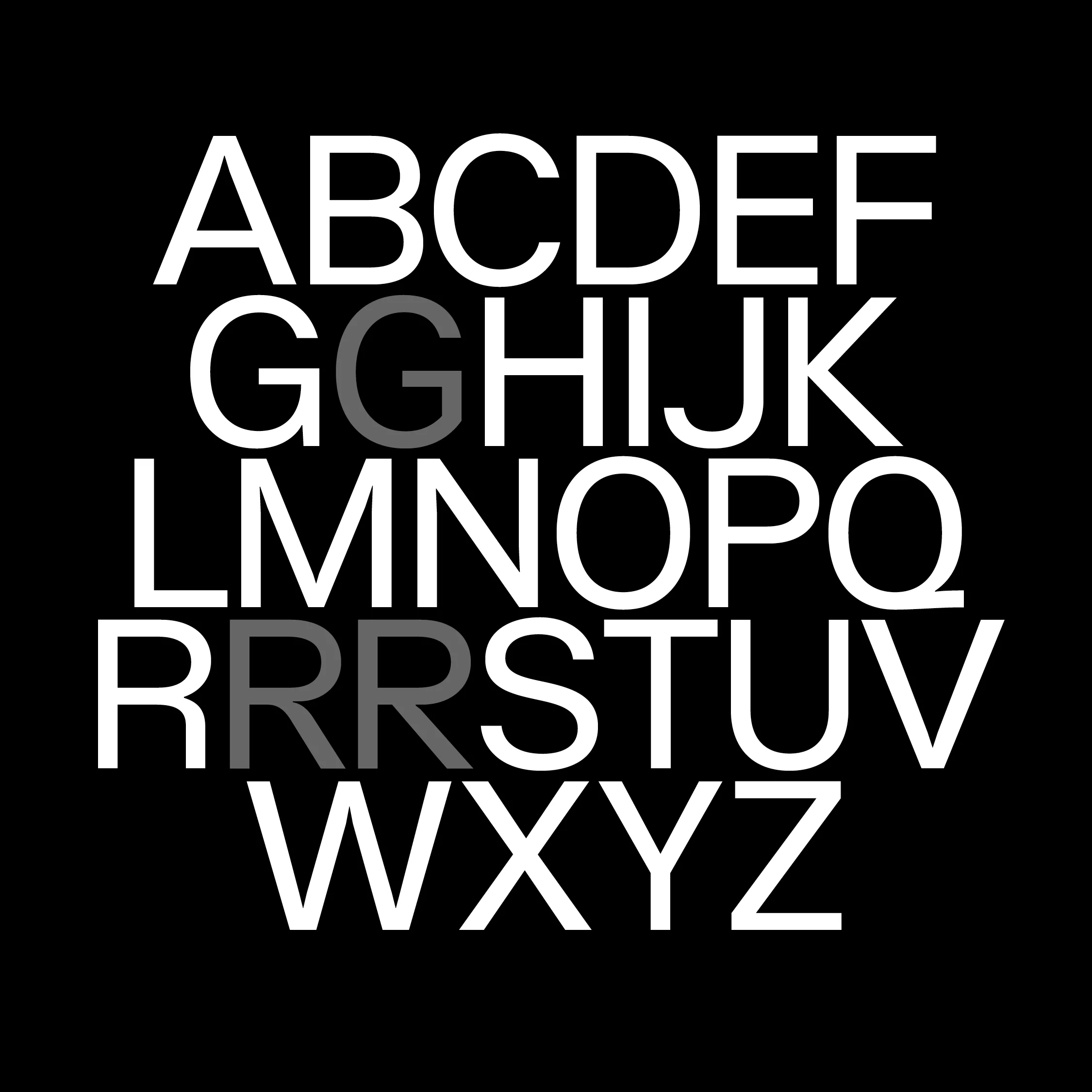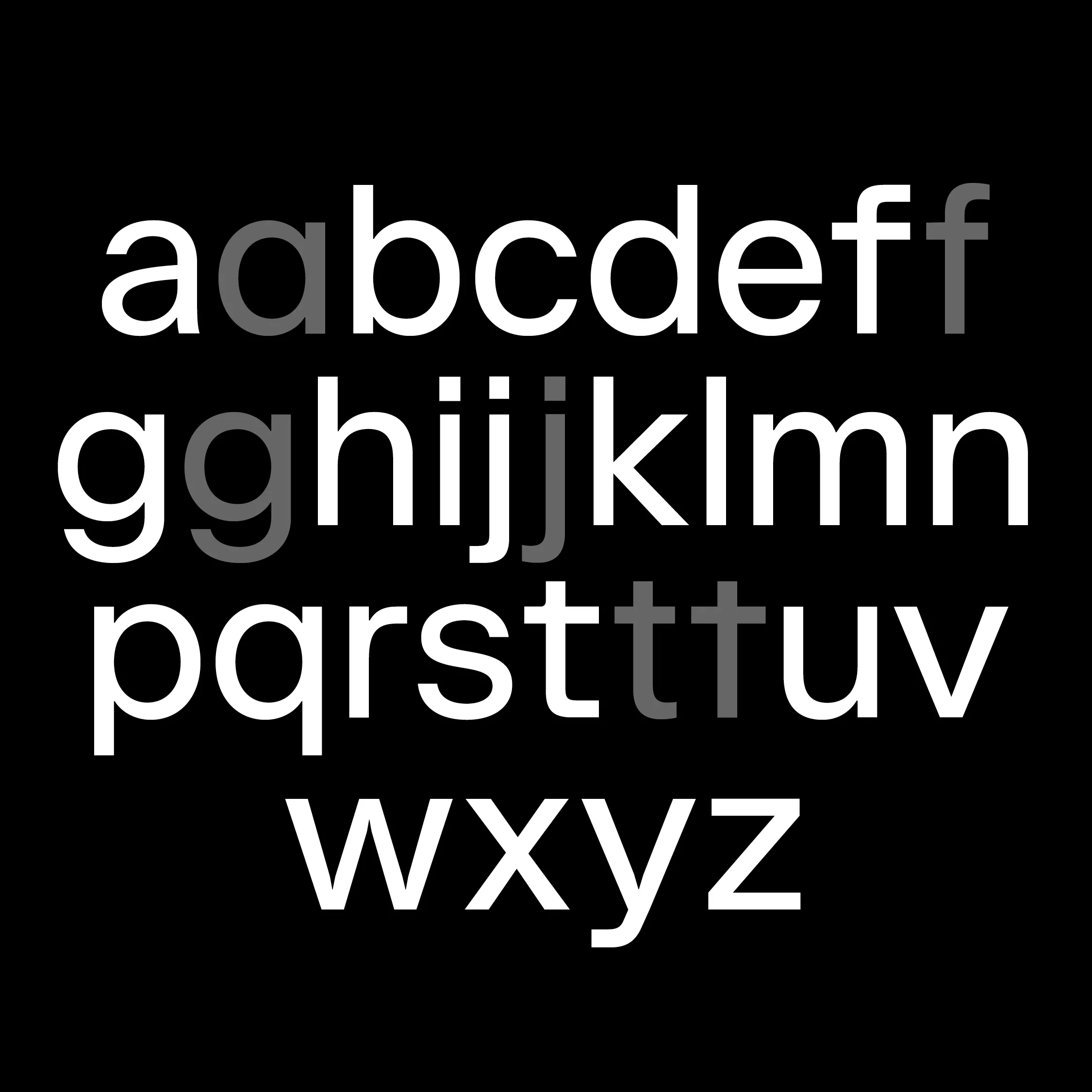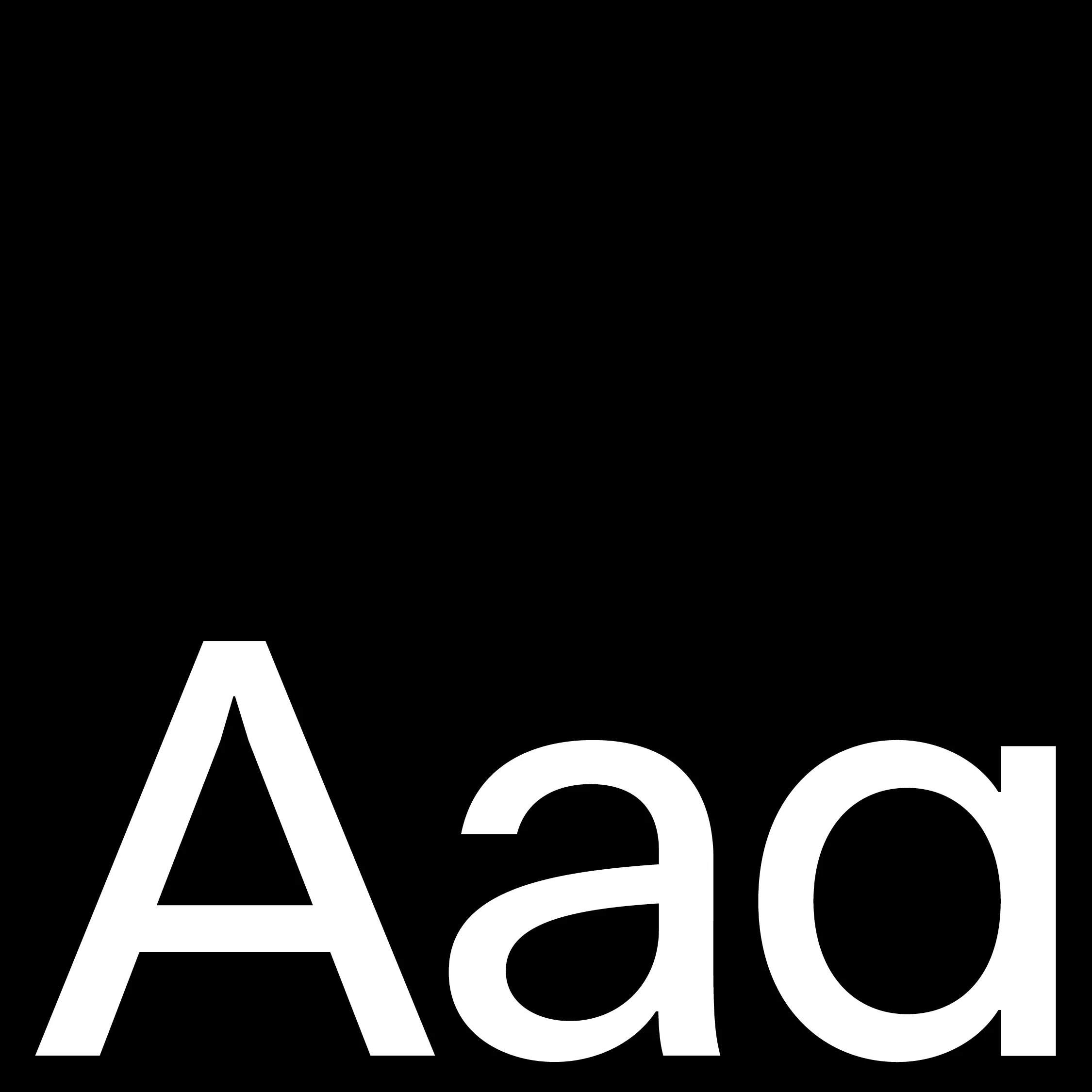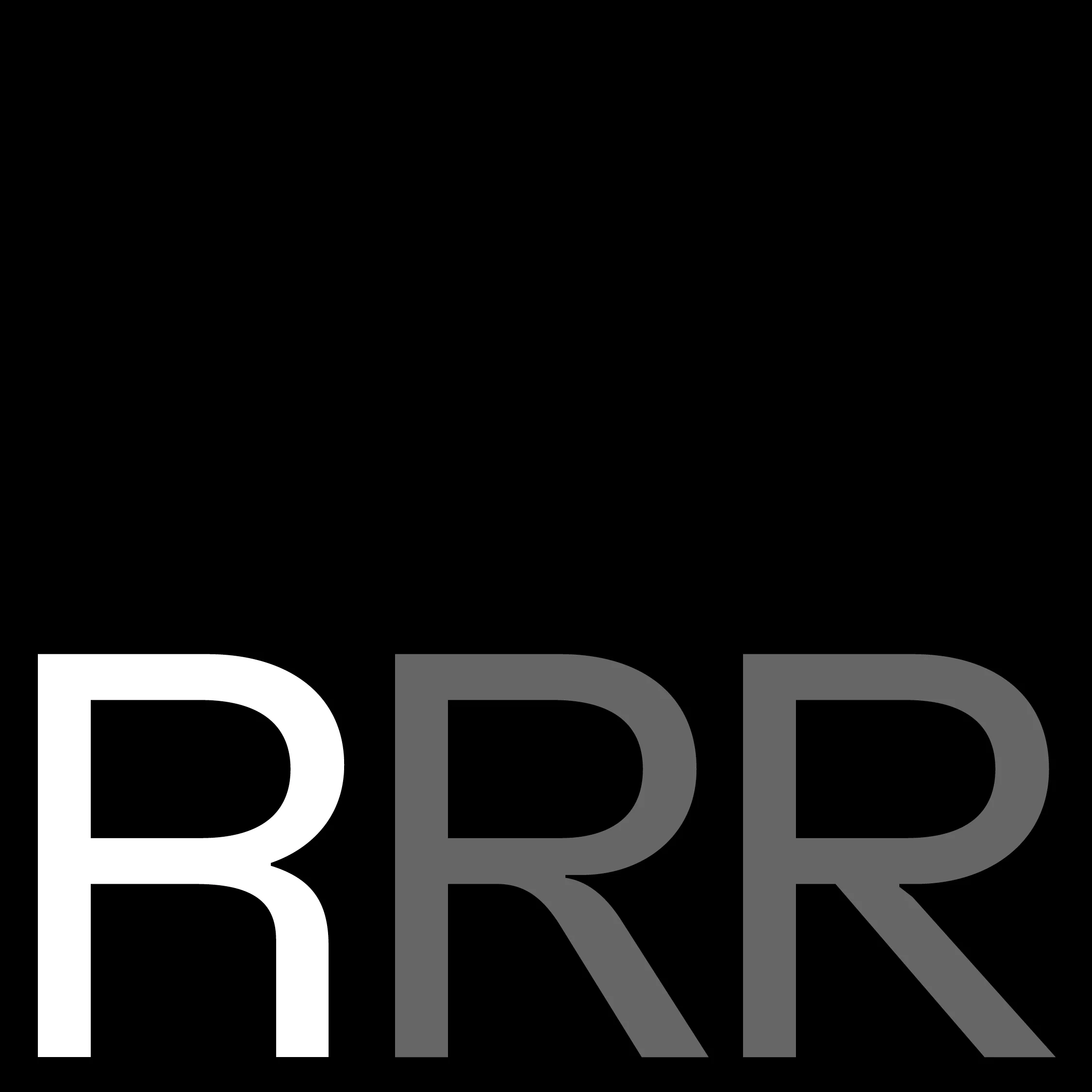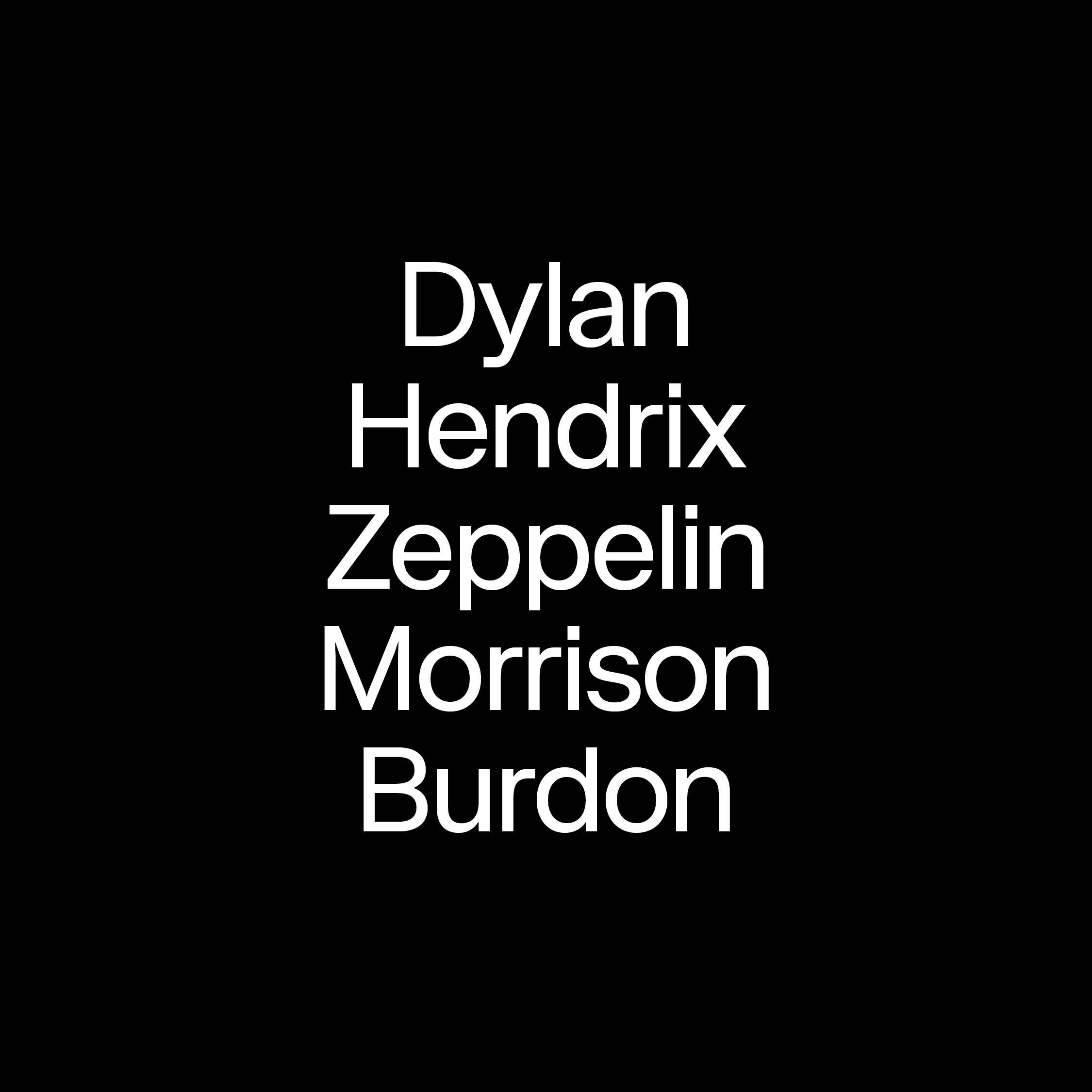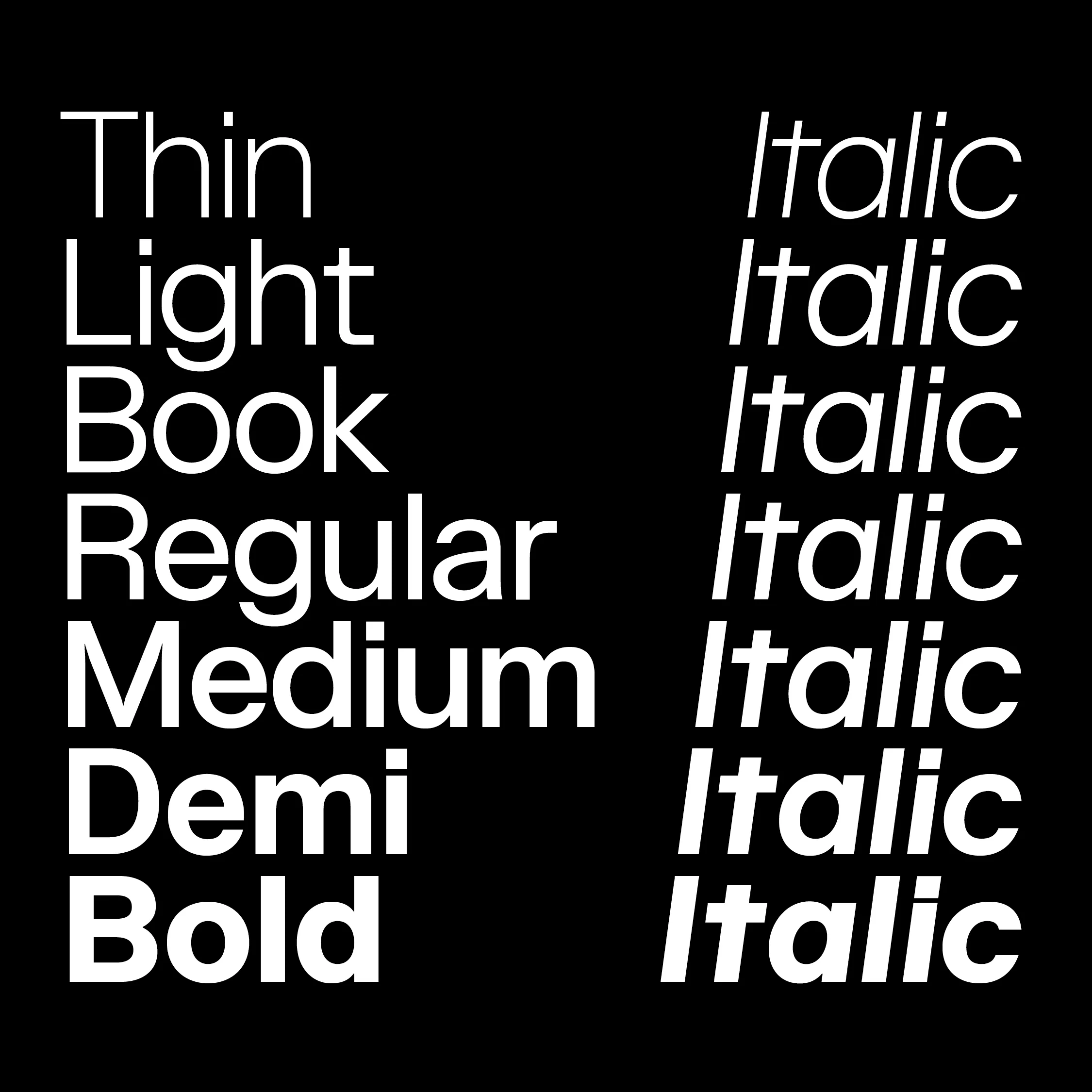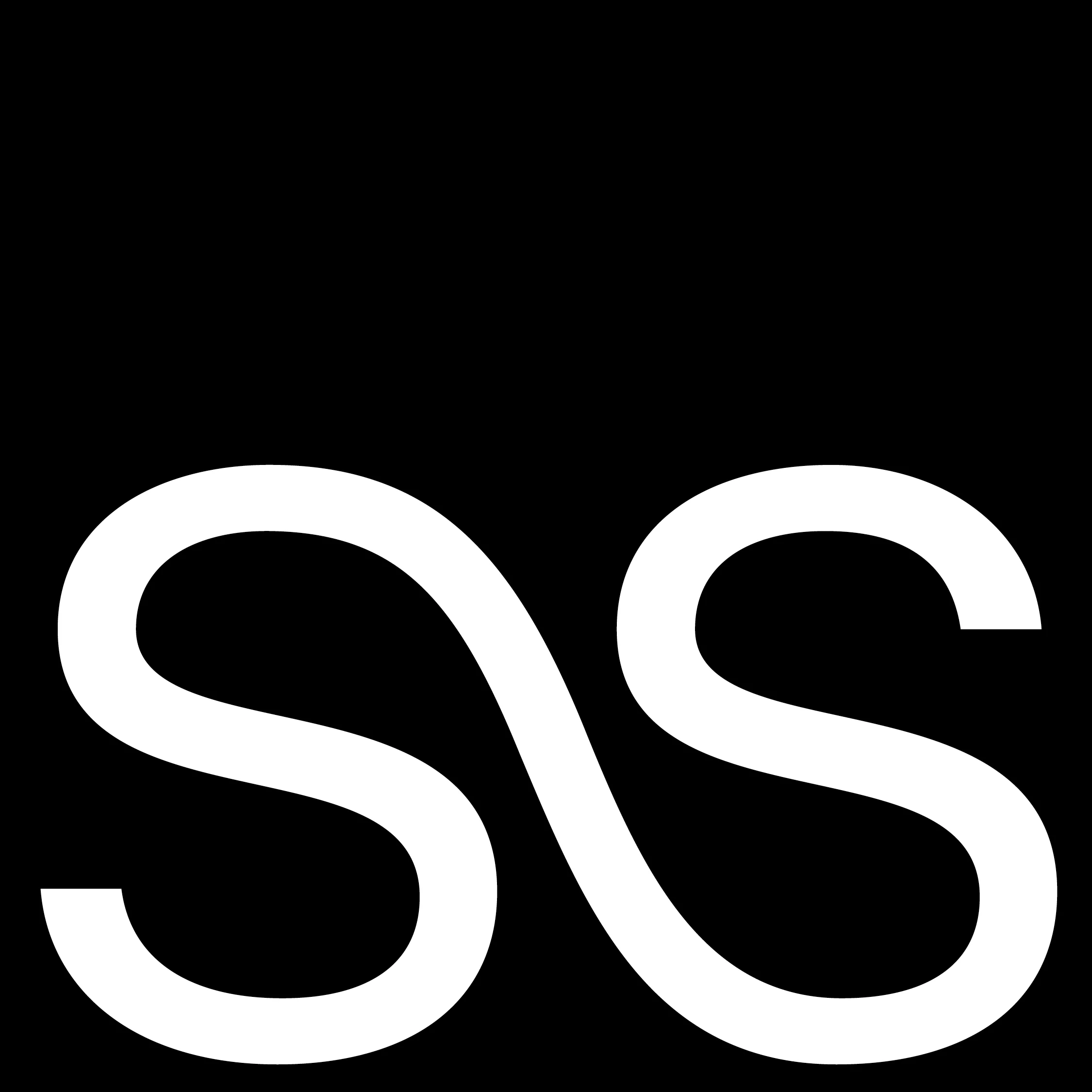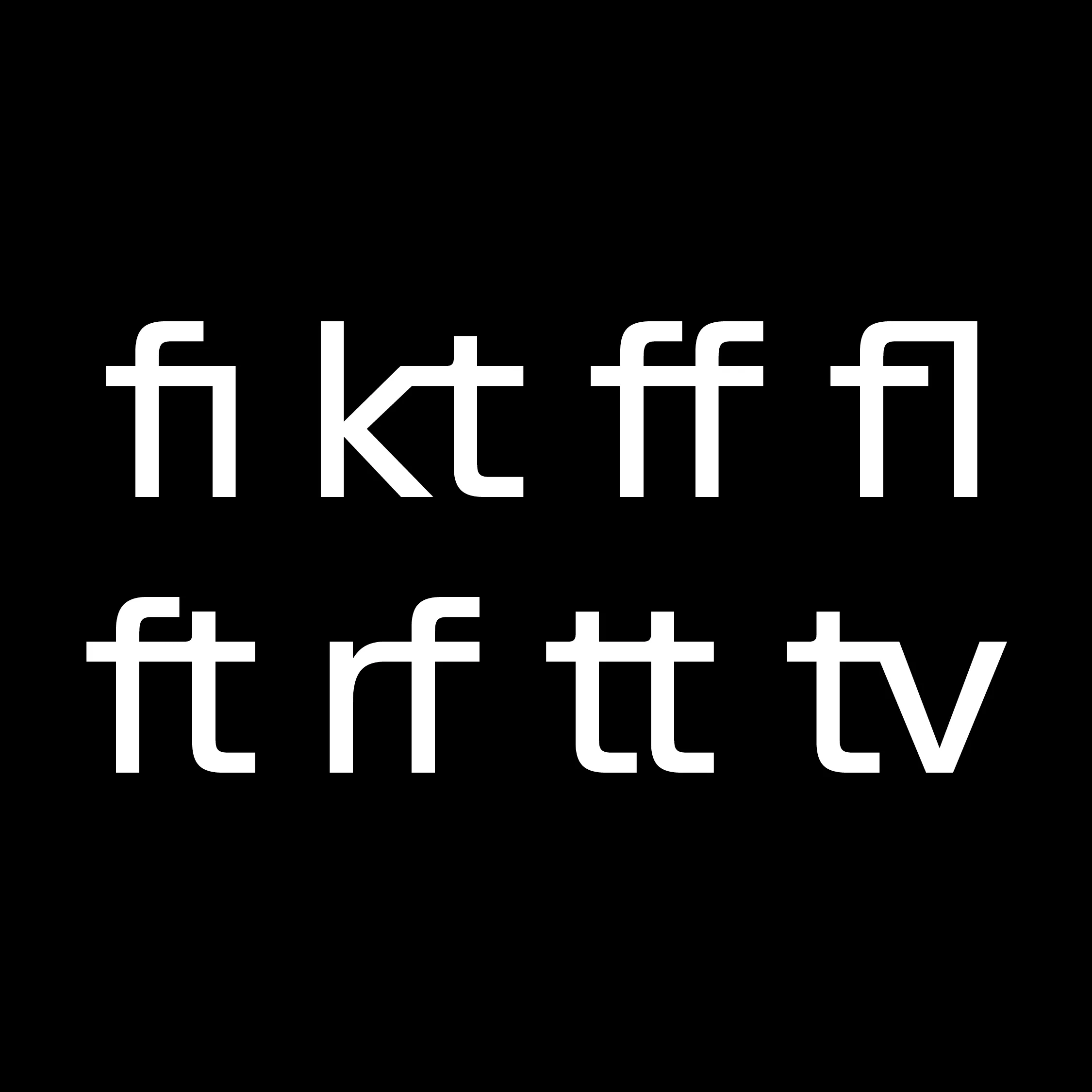
Arkive
Arkive (formerly named Catalogue) has been meticulously crafted with versatility and creativity in mind. Designed to excel in a wide range of applications, from body text to logotypes, Arkive shines in virtually any context.
Its distinctive charm lies in its extensive set of geometric and linear stylistic alternates, allowing you to effortlessly tailor its appearance to suit your needs. Whether you prefer a subtle refinement or a bold statement, Arkive offers the flexibility to express your unique style.
Arkive (formerly named Catalogue) has been meticulously crafted with versatility and creativity in mind. Designed to excel in a wide range of applications, from body text to logotypes, Arkive shines in virtually any context.
Its distinctive charm lies in its extensive set of geometric and linear stylistic alternates, allowing you to effortlessly tailor its appearance to suit your needs. Whether you prefer a subtle refinement or a bold statement, Arkive offers the flexibility to express your unique style.